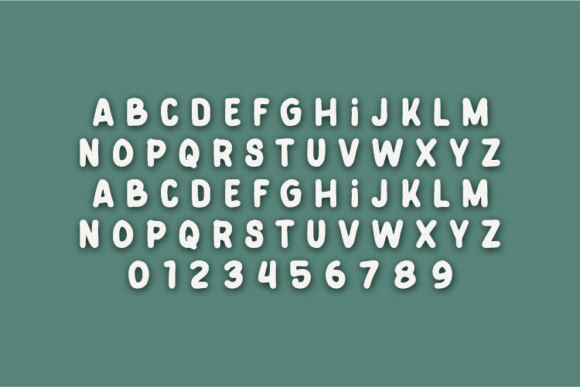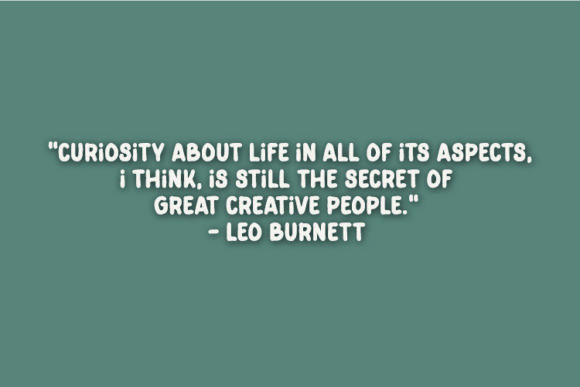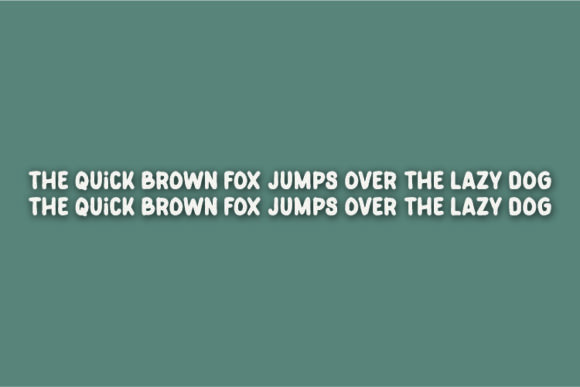
Biscotti Font: The Ultimate Clean and Friendly Handwritten Font for Designers and Crafters
Are you tired of using the same old fonts for your digital designs, crafts, and presentations? Look no further! Introducing Biscotti Font, a clean and friendly handwritten font that’s about to become your new favorite go-to font for all occasions. In this article, we’ll dive into the world of Biscotti Font, exploring its features, uses, and benefits for designers and crafters alike.
What is Biscotti Font?
Biscotti Font is a beautiful, handcrafted font that’s designed to bring a touch of warmth and personality to your designs. With its clean and friendly lines, this font is perfect for a wide range of applications, from digital designs and presentations to crafts and greeting cards. Whether you’re a professional designer or a crafty DIY enthusiast, Biscotti Font is sure to become a staple in your font collection.
Features of Biscotti Font
So, what makes Biscotti Font so special? Here are just a few of its standout features:
- Clean and Friendly Design: Biscotti Font boasts a clean and friendly design that’s perfect for creating visually appealing designs that are easy on the eyes.
- Handwritten Style: With its handwritten style, Biscotti Font adds a touch of personality and warmth to your designs, making them feel more approachable and engaging.
- Versatile: Biscotti Font is incredibly versatile, making it suitable for a wide range of applications, from digital designs and presentations to crafts and greeting cards.
- Easy to Read: The font is designed to be easy to read, even at smaller sizes, making it perfect for body text and captions.
Uses of Biscotti Font
So, how can you use Biscotti Font in your designs? Here are just a few ideas to get you started:
- Digital Designs: Use Biscotti Font in your digital designs, such as social media graphics, blog posts, and email newsletters, to add a touch of personality and warmth.
- Crafts: Biscotti Font is perfect for crafty projects, such as handmade cards, scrapbooking, and DIY gifts.
- Presentations: Add a touch of elegance and sophistication to your presentations with Biscotti Font.
- Greeting Cards: Use Biscotti Font to create beautiful, handmade greeting cards for special occasions.
Benefits of Using Biscotti Font
So, why should you choose Biscotti Font for your designs? Here are just a few benefits:
- Unique and Eye-Catching: Biscotti Font is a unique and eye-catching font that’s sure to make your designs stand out from the crowd.
- Easy to Use: The font is easy to use and pairs well with a wide range of other fonts, making it perfect for mixing and matching.
- Time-Saving: With Biscotti Font, you can create beautiful designs in no time, saving you time and effort.
In conclusion, Biscotti Font is a clean and friendly handwritten font that’s perfect for designers and crafters alike. With its versatile design, ease of use, and range of applications, Biscotti Font is sure to become your new go-to font for all occasions. Whether you’re creating digital designs, crafts, presentations, or greeting cards, Biscotti Font is the perfect choice. So why wait? Download Biscotti Font today and start creating beautiful designs that are sure to impress!